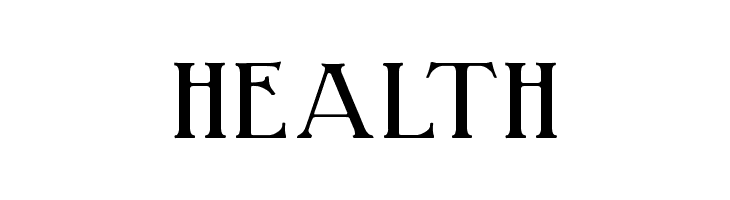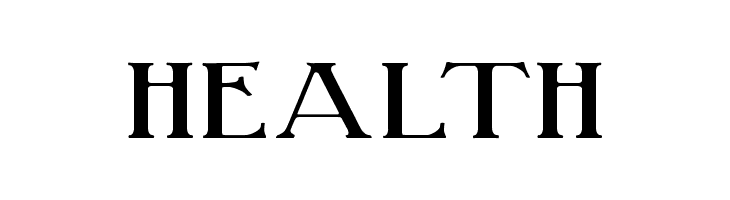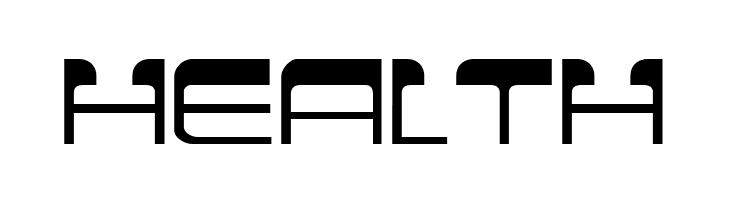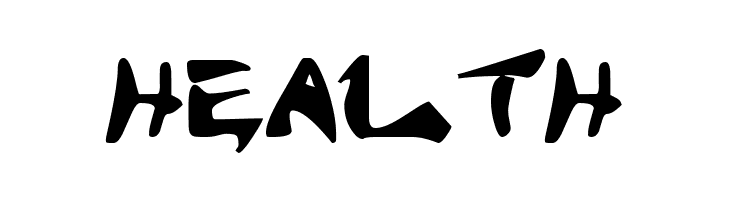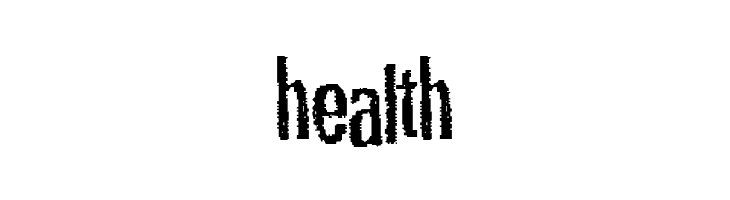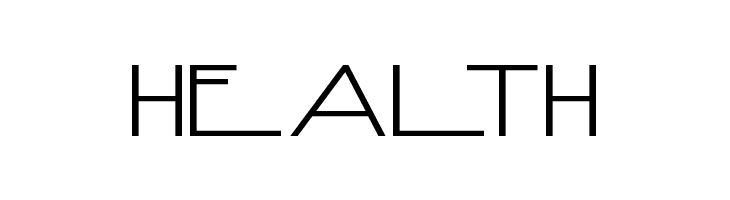
A sophisticated serif font with elegant, elongated serifs and decorative elements.
A bold and artistic font with a blend of sharp and smooth lines.
A bold, graffiti-inspired font with dynamic, high-contrast strokes.
A geometric, precise Latin capital font with classical design elements.
A distressed, textured font with a vintage, handmade feel.